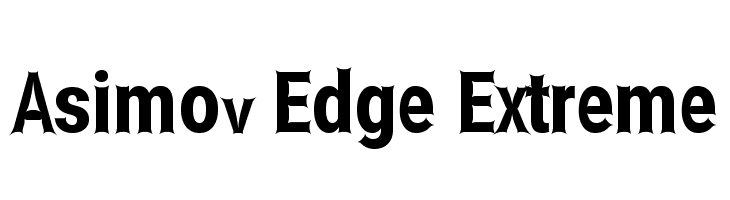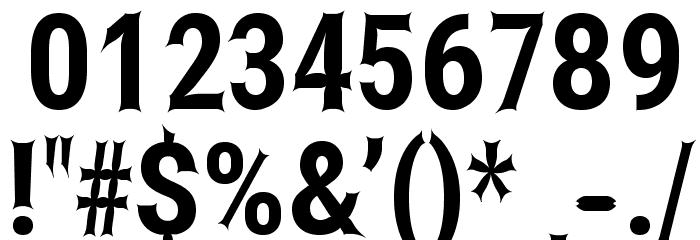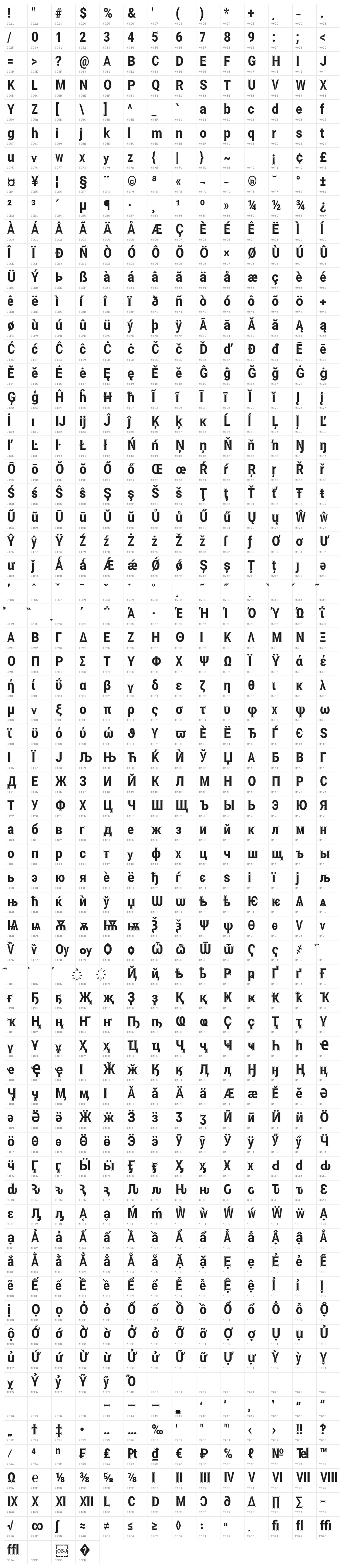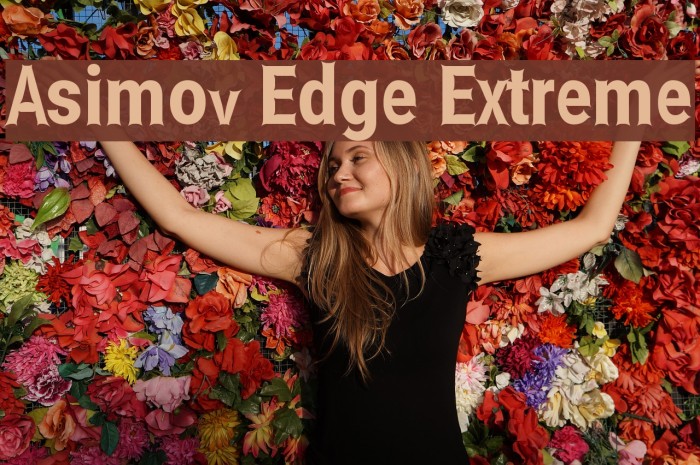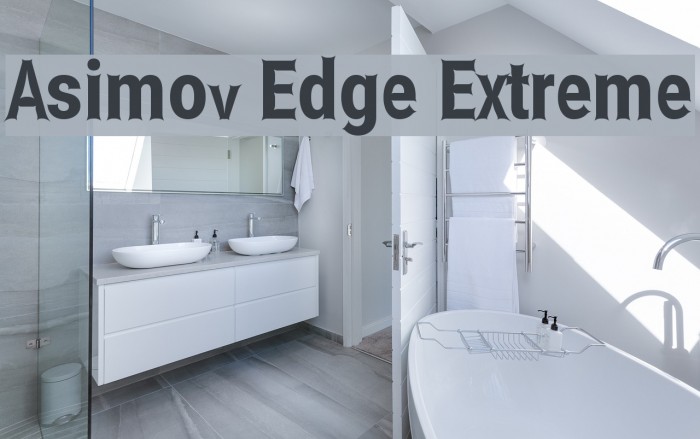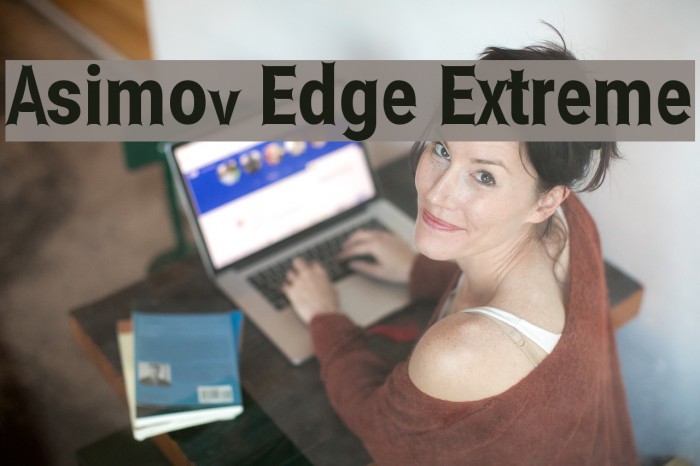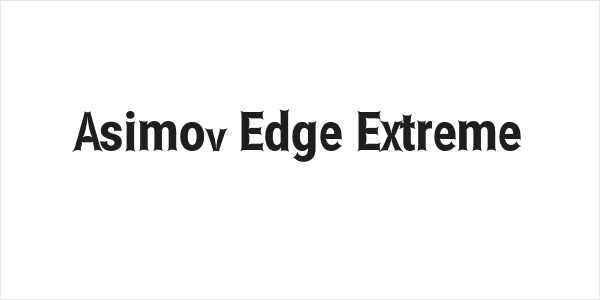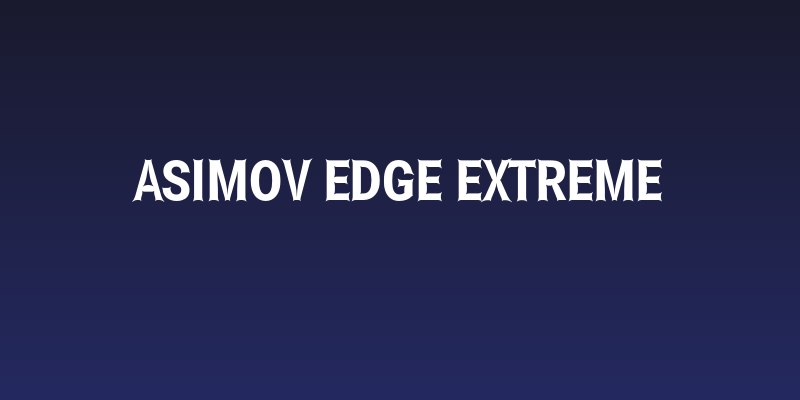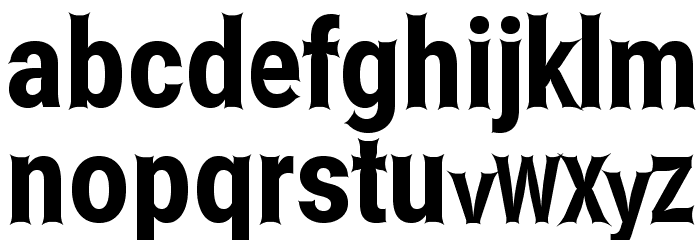
Asimov Edge Extreme Font
Asimov Edge Extreme Description
This font features a bold and striking design with sharp, angular serifs that give it a distinctive and edgy appearance. The uppercase letters are particularly prominent, with strong vertical lines and pointed serifs that create a sense of authority and impact. The lowercase letters maintain this boldness, ensuring consistency throughout the typeface. Numbers and special characters are equally robust, making them stand out in any context. The overall design is modern yet retains a classic serif structure, making it versatile for various applications.